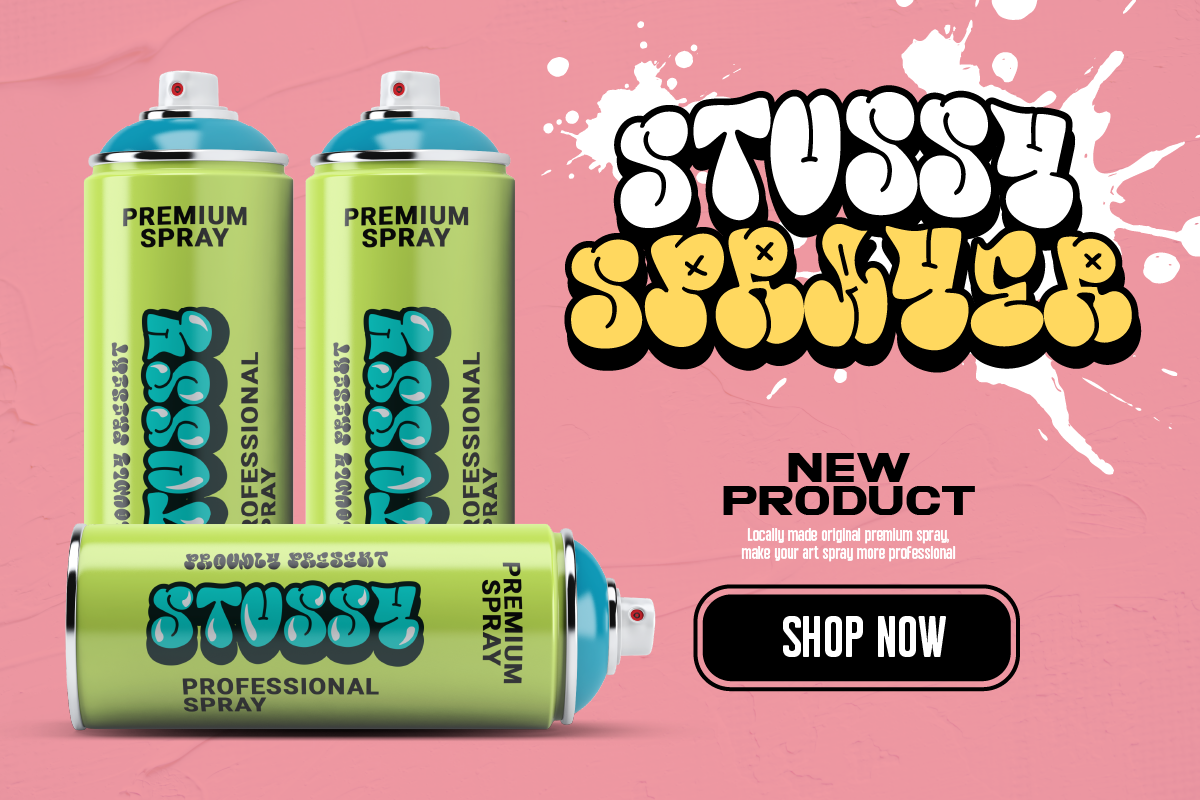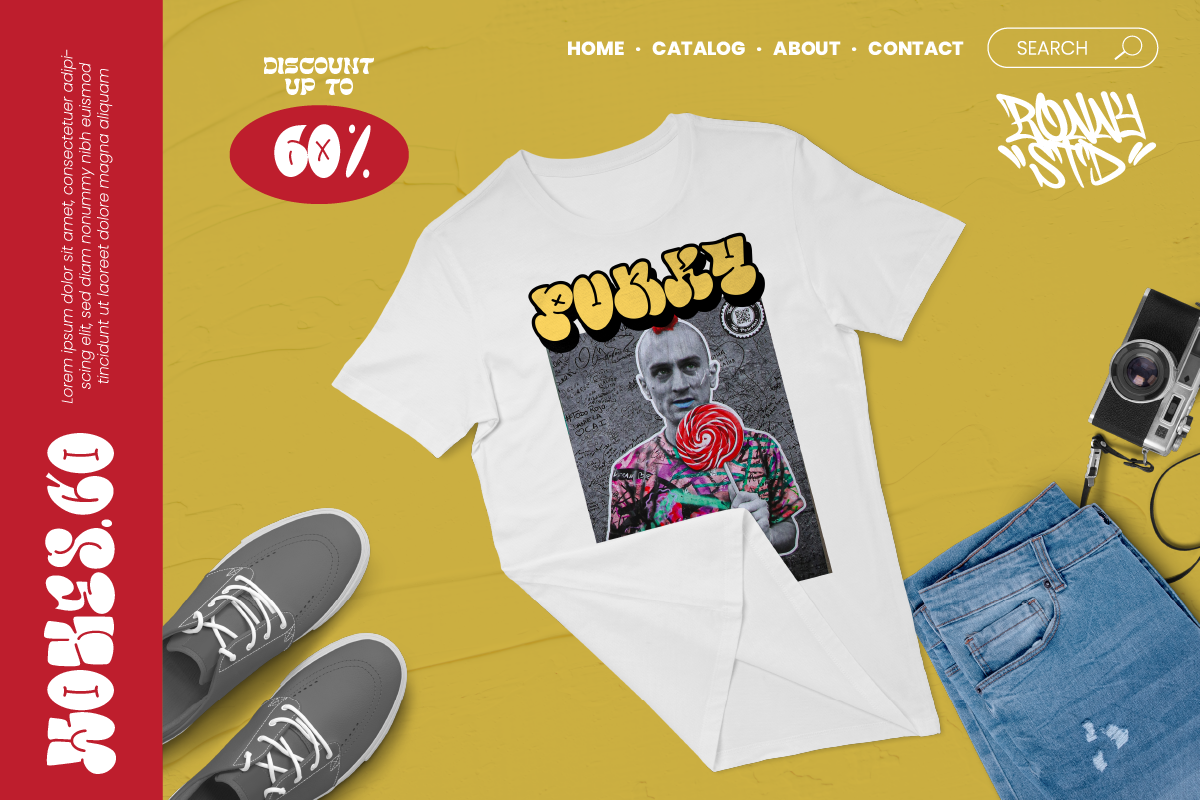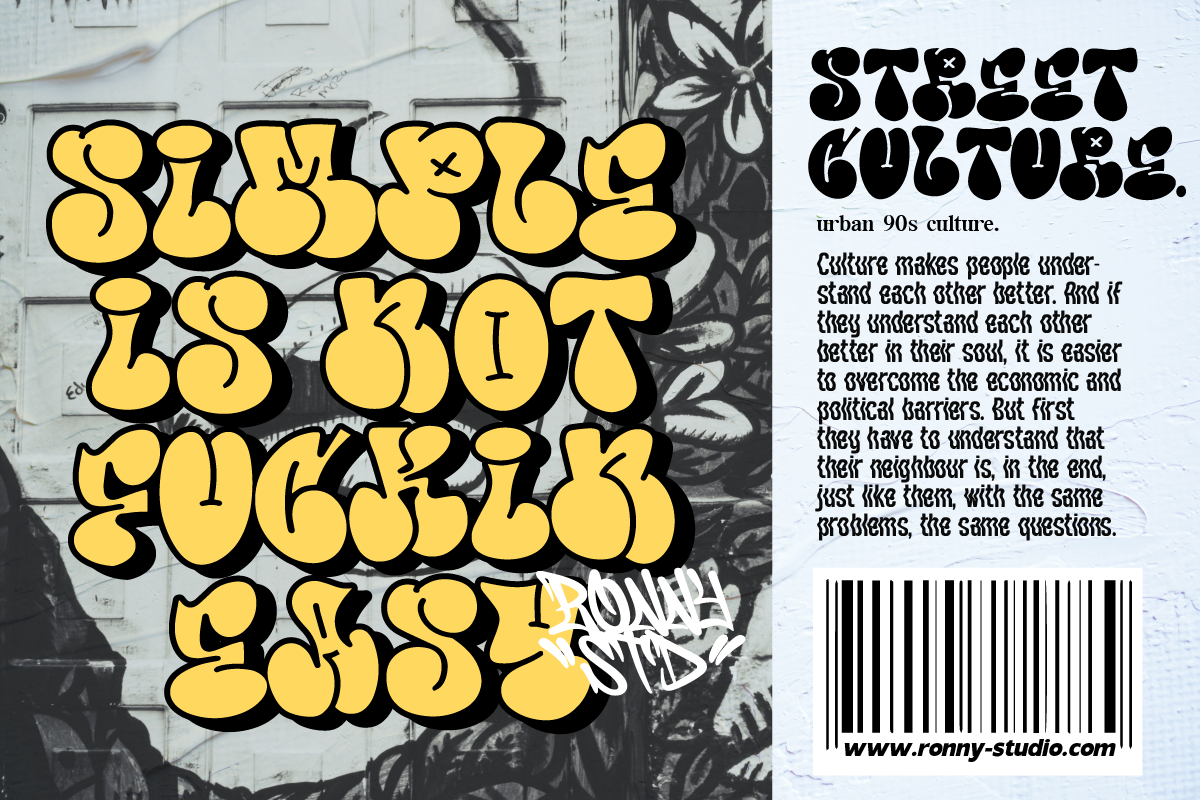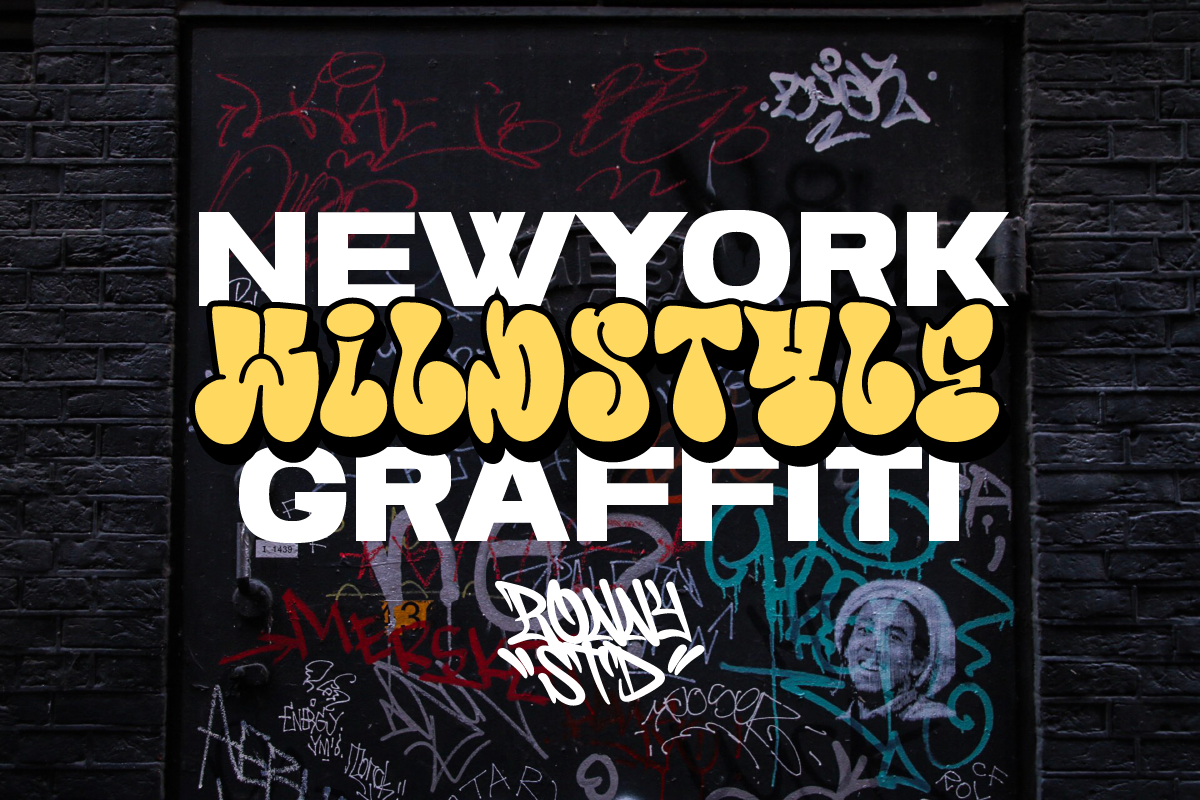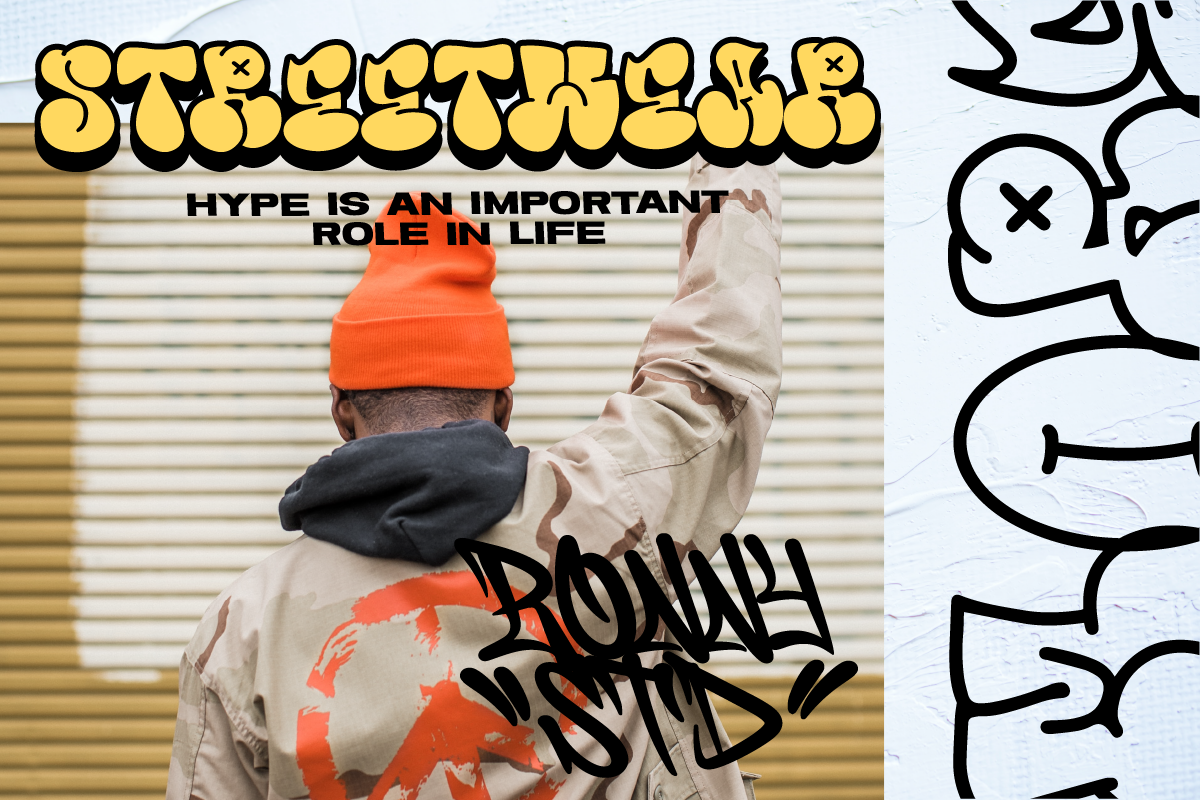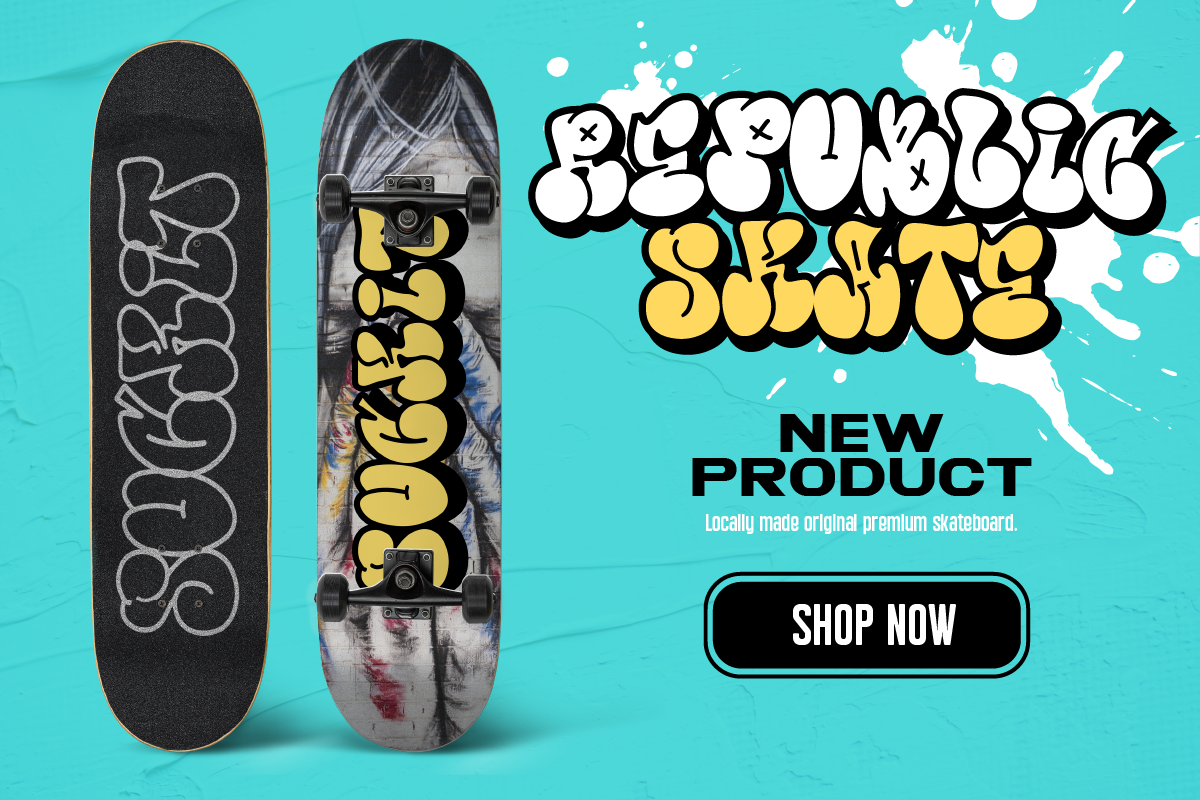
More Than Life Bubble Graffiti
The More Than Life Bubble graffiti tag font is a typography style commonly used in street art and graffiti culture. It features rounded and inflated letters that create a three-dimensional, bubble-like effect. This style is often used for tagging, a form of graffiti in which an artist writes their name or a stylized chosen word to mark their territory or establish their presence. This font is perfect for your design needs with a graffiti theme.
- All Caps